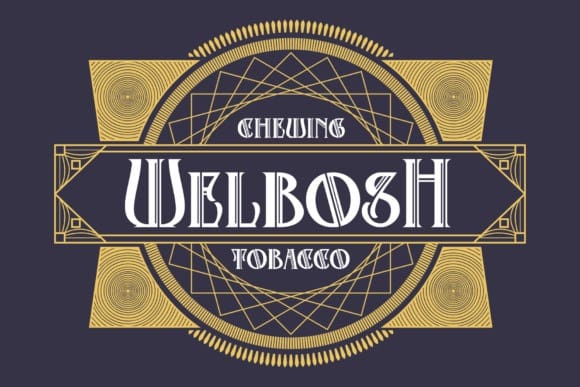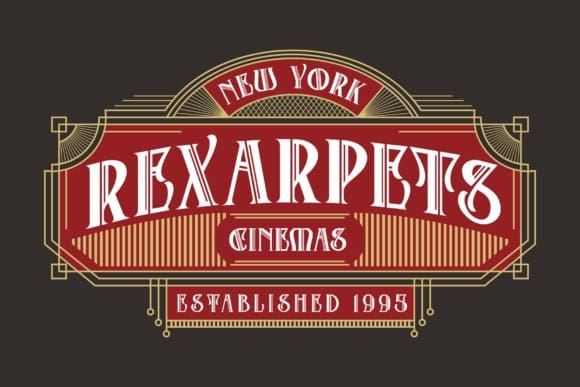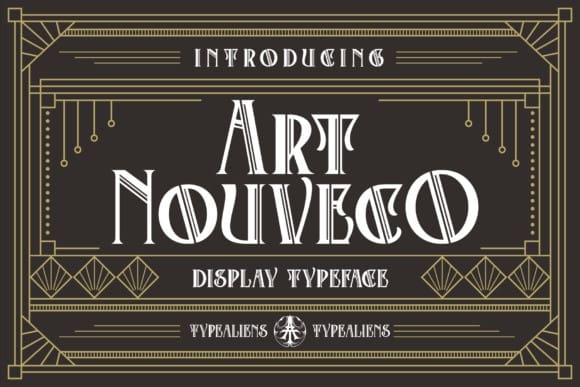
Art Nouveco Font
Art Nouveco Font is a stylish cross between art nouveau and art deco fonts. The unique artistic influences of this display typeface will help you create stunning designs.